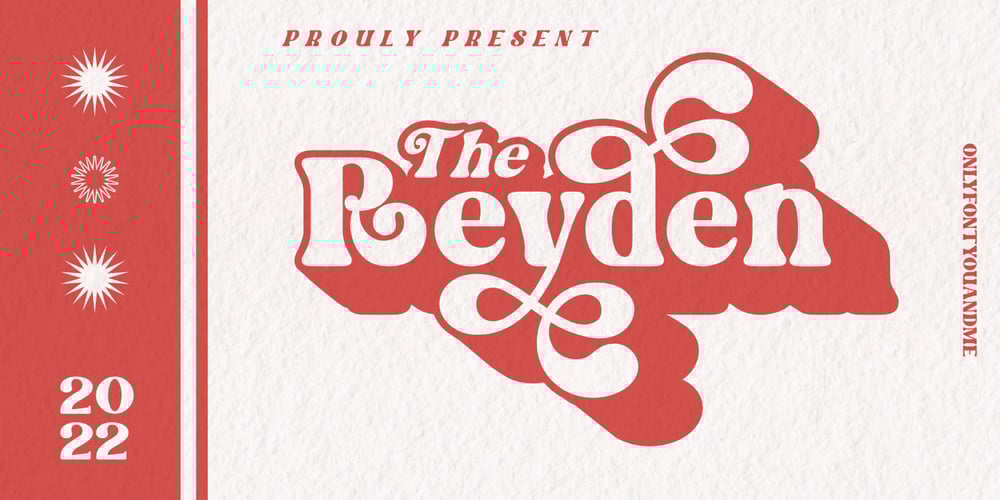
The Reyden Font Family was designed by Aghny Akromuddin El Haq and published by onlyfontyouandme. The Reyden contains 1 styles and family package options. The Reyden is a retro and bold display font. This font is PUA encoded which means you can access all of the glyphs and alternates with ease! It would look great on headlines, magazines, logos, branding and so much more!